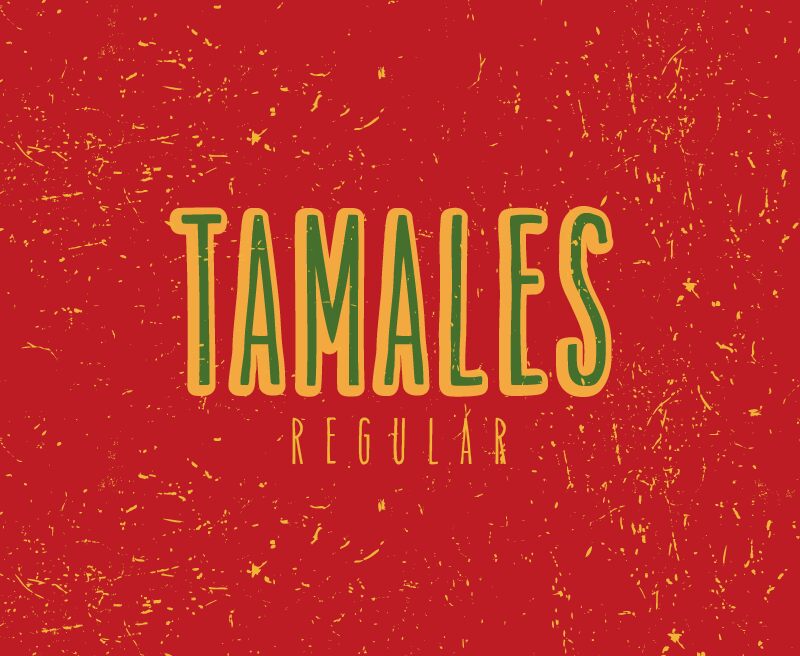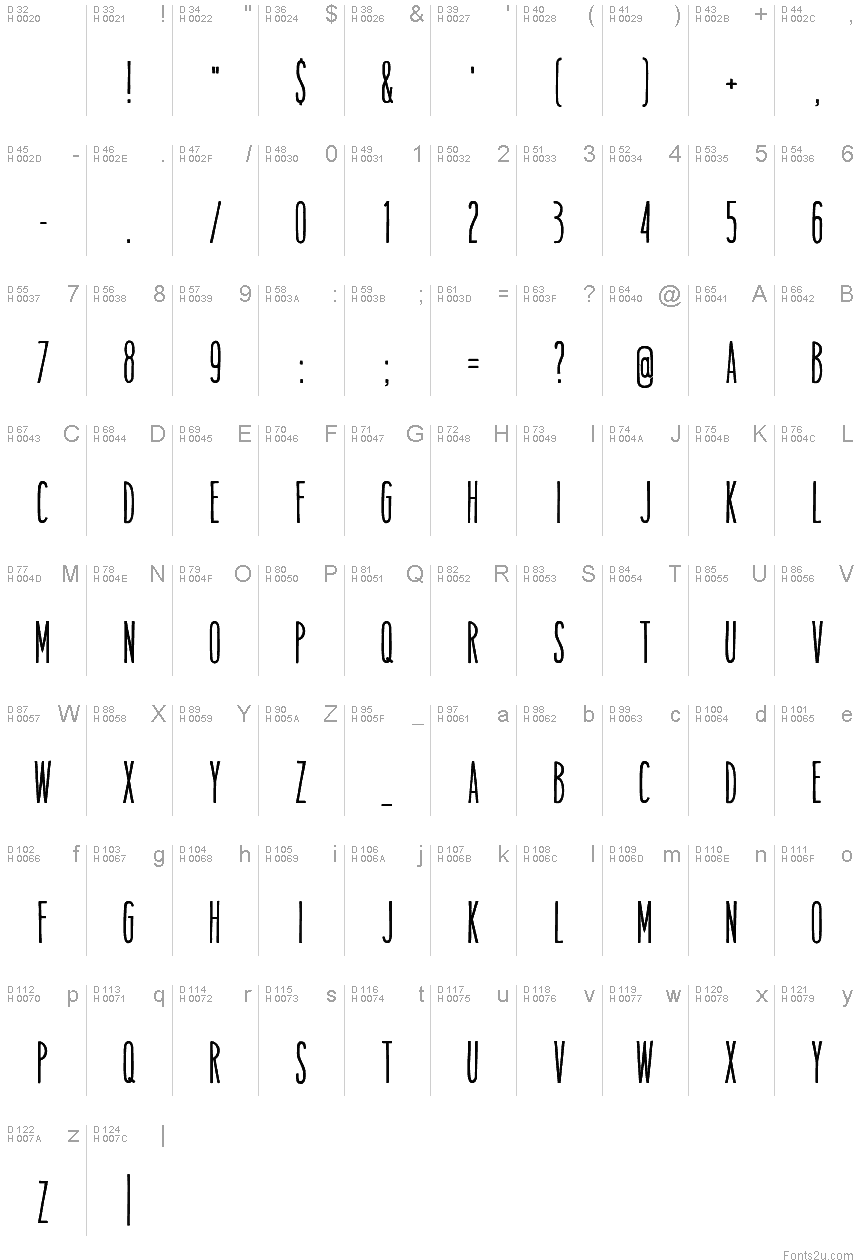
Tamales Regular
A organic and nice narrow typeface, suitable for menus, logos, pricetags and the like.
Tamales Regular is a font designed by HENRIavecunK.